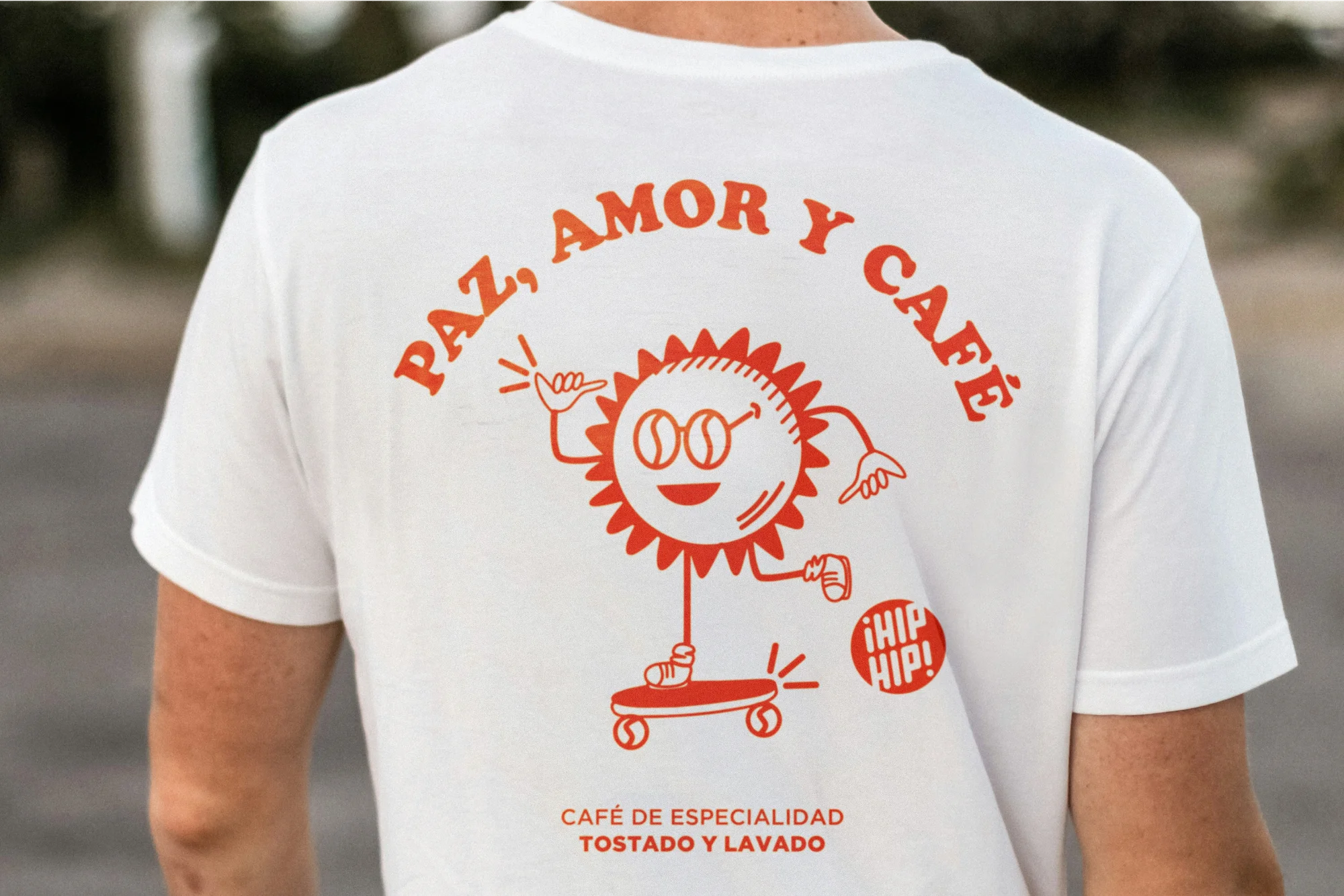
The best fonts for t-shirts stay readable from across the room, print cleanly at chest size, and match the mood of the design: heavy sans-serifs for streetwear, slab serifs for vintage looks, and hand-drawn scripts for playful slogans.
On slogan shirts, the lettering is the whole design, so the font decides whether people read it or walk past. A spindly script that blurs at a distance, or a font without a commercial license, can sink a design before it sells. Below are 75 fonts across every major style, and how to choose the right one.
- Start with the words – A funny phrase, brand name, or single word needs a different type choice than a long quote.
- Match the font to the buyer – A playful font can suit kidswear, while stripped-back typography works better for fitness, tech, or fashion brands.
- Design for distance – If shoppers can’t read the letters on a phone screen or mockup, they won’t read them on a moving shirt.
- Use restraint – One hero font and one font for supporting text usually beat five competing styles.
- Test before launch – Preview your text on different t-shirts, hoodies, colors, and fabrics before publishing.
Best fonts for t-shirts: Quick answer
The best t-shirt fonts depend on the job: short slogans need punch, long quotes need readability, and brand merch needs type that can carry a logo, tagline, or campaign line without visual noise.
Font categories | Use them for | Example fonts | Design note |
Sans-serif fonts | Minimalist, fitness, tech, workwear | Open Sans, Work Sans, Montserrat | Use for simple layouts and small text. |
Display fonts | Slogans, drops, creator merch | Anton, Bebas Neue, Bangers | Best for short, attention-grabbing lines. |
Handwritten fonts | Personal gifts, lifestyle merch, art brands | Caveat, Pacifico, Permanent Marker | Use when the message should feel human. |
Retro fonts | Nostalgia, music, surf, diner, and club merch | Special Elite, Rye, Alfa Slab One | Pair with faded colors or distressed graphic elements. |
Playful fonts | Kidswear, birthday shirts, pet merch | Fredoka, Chewy, Luckiest Guy | A playful font works when the buyer expects humor. |
Serif fonts | Boutique, literary, premium, and vintage looks | Playfair Display, Lora, Cormorant Garamond | Use sparingly for quotes, initials, or editorial-style designs. |
Decorative fonts | Halloween, tattoo, gothic, fantasy, events | Creepster, Pirata One, Metal Mania | Keep the text short and test every letter. |
How to choose t-shirt fonts for your text designs
A font is not decoration first – it’s the voice of your print-on-demand t-shirt. Before picking your favorite fonts, decide what the design should do: make someone laugh, signal belonging, promote a brand, mark an event, or make a fashion statement.
Match the font to the message
Start with the sentence, not the font menu.
A sarcastic gym slogan needs different typography than a wedding party t-shirt. A school fundraiser needs readable letters on the merchandise. A music drop can take more risk.
The right font should make the words land faster. Long story short – the chosen font needs to make sense.
Use this shortcut:
- Short phrase: Try a bold display font.
- Long quote: Use a subtle, simple font with generous spacing.
- Brand name: Pick a typeface that can sit on t-shirts, labels, packaging, and your website.
- Event design: Use a type style that reflects the theme without burying the date or location.
- Gift shirt: Choose a warmer style, such as a script or handwriting-inspired option.
Build a visual hierarchy with one or two t-shirt fonts
A good t-shirt design tells the eye where to look first. That’s called visual hierarchy.
Use one main font for the hero line and, if needed, a second font for supporting text. The main line should carry the joke, statement, or brand name. The smaller line can hold the date, location, slogan, or collection name.
A reliable layout for your t-shirt design:
- Hero text: Large, bold, and readable.
- Supporting text: Smaller, calmer, and spaced well.
- Graphic element: Placed around the words, not fighting them.
- White space: Left on purpose so the design can breathe.
Using two fonts works best when they have different roles. Using two loud t-shirt fonts usually creates a shouting match.
Check line spacing, letter spacing, and caps
Text that looks fine on a laptop can collapse on fabric. Before you print, check how the letters behave in the actual t-shirt design.
Watch for:
- Line spacing: Tight lines can blur together on small designs.
- Letter spacing: Too little space makes words feel cramped; too much breaks the phrase apart.
- Caps: Full caps can work for a single word or short slogan, but longer text may feel like a warning label.